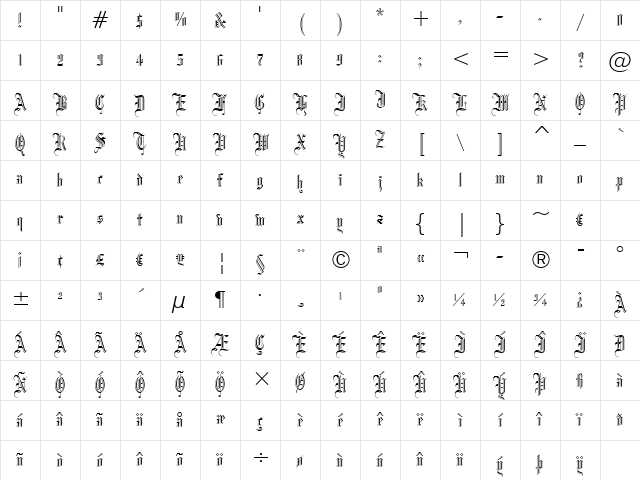
Blackletter686 BT Regular
Blackletter686 BT Family
Design Context for Blackletter686 BT
Blackletter686 BT draws on the rich tradition of blackletter calligraphy, with dense, angular strokes that evoke medieval manuscripts and old-world craftsmanship.
Font Pairing: Pair with a clean neutral sans-serif for body copy to let Blackletter686 BT's character lead without overwhelming the composition.
Pro Tip: Reserve Blackletter686 BT for display and logo use - pair it with a clean sans-serif for body copy to prevent the composition from feeling oppressive.